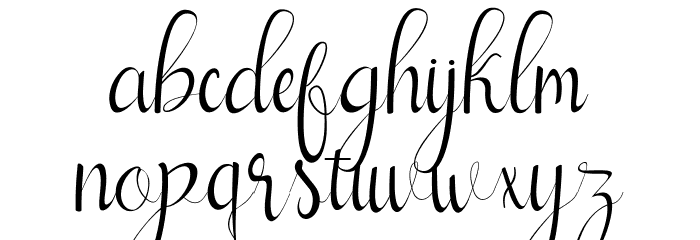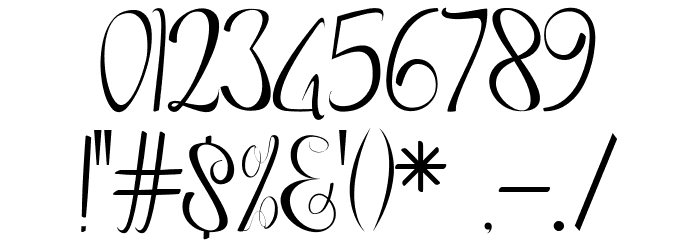
brazilian free Font
This font features an elegant and flowing script style with a modern twist. The uppercase letters are tall and slender, with graceful curves and a slight slant that adds a sense of movement. The lowercase letters are more intricate, with sweeping ascenders and descenders that create a dynamic and artistic appearance. The numbers are bold and slightly whimsical, maintaining the overall fluidity of the design. Special characters are creatively integrated, enhancing the font's decorative appeal. The combination of thin and thick strokes gives the font a medium contrast, making it suitable for various creative applications.
An elegant, flowing script font with modern, artistic curves.
- Proposed Projects: Ideal for wedding invitations, branding, greeting cards, and artistic projects.